I'm trying to write my texts using a font like the image below, from an old book. Does anybody here know what is that font?
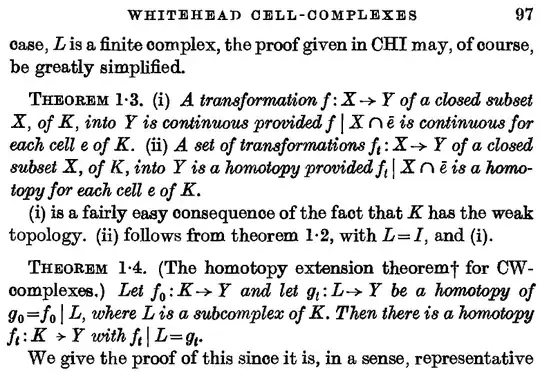
Using Baskerville as @Papiro suggested I got this (the math font is a little bit different):
• Could you please add the name of the text or sth, for Google-ish purposes? Someone googling for the font might want to try searching by the title of the book. As the question stands, it is going to be extremely hard to search. Oh, +1 for the question! – kan Apr 12 '13 at 01:03
• It is a scanned paper and I can not see any properties on the file. By the way, it is from a paper of P.J. Hilton. – Sigur Apr 12 '13 at 01:10
If it's a paper, it might help to know what journal it was published in. – kan Apr 12 '13 at 01:52
This text is from P.J. Hilton, An Introduction to Homotopy Theory, Cambridge University Press, 1953, pp. 97. In the book, there is no information about the font used. –  Apr 12 '13 at 02:02
Seems to be “Baskerville”: https://www.google.com/search?q=typeface+cambridge+university+press&ie=utf-8&oe=utf-8 – Speravir Apr 12 '13 at 02:22
Sigur your second screenshot is the proof, that is is in fact a version of Baskerville typeface! I say version because over time there were slightly different derivatives developed, cf. En. Wikipedia: Baskerville. Both in MiKTeX and TeX Live there are gfsbaskerville, librebaskerville and baskervald, and see also newtx documentation. – Speravir Apr 12 '13 at 03:30
while I agree that it's OK to close this question, I'm sorry to say that the answer »Baskerville« is off by almost an entire century. The typeface we have here is a typical example of the so-called »Scotch Roman« family from the mid-1800s (Baskerville died in the 1770s!). Digital renditions of that style have been done by Nick Shinn, URW & countless others. Knuth's Computer Modern is of course one of them, too. You may also like TeX Gyre Schola and Miller, which have a somewhat ›friendlier‹ appearance. – Nils L Apr 12 '13 at 14:53